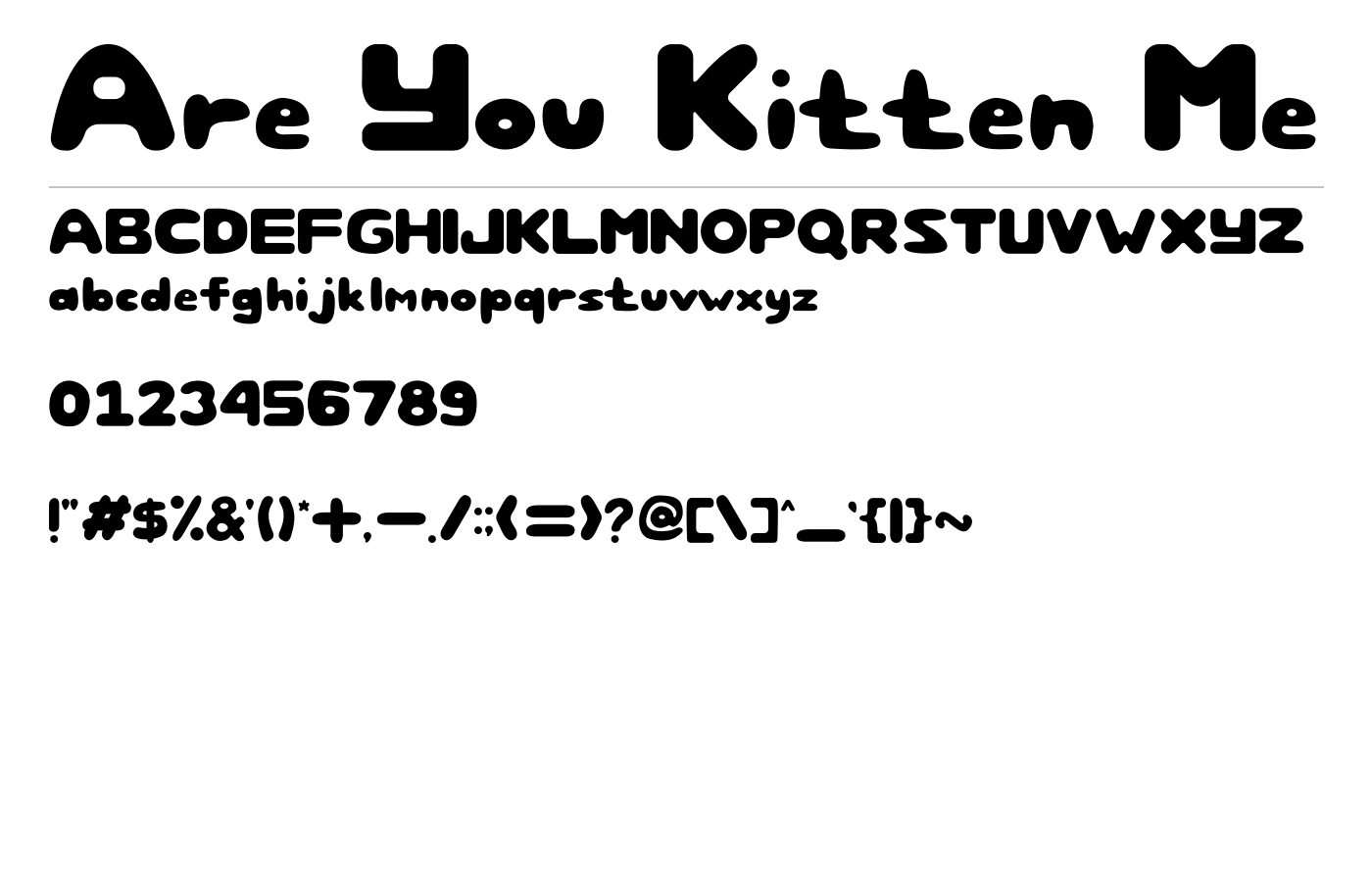
Are You Kitten Me is a playful, rounded sans serif font with a bold weight and a friendly, casual vibe. Its soft, bubbly letterforms and slightly irregular shapes create a whimsical and approachable feel, perfect for children's designs, fun branding, or quirky headlines. This font works best where a lighthearted and informal tone is needed to engage and delight audiences.
Are You Kitten Me Font
About Are You Kitten Me Font